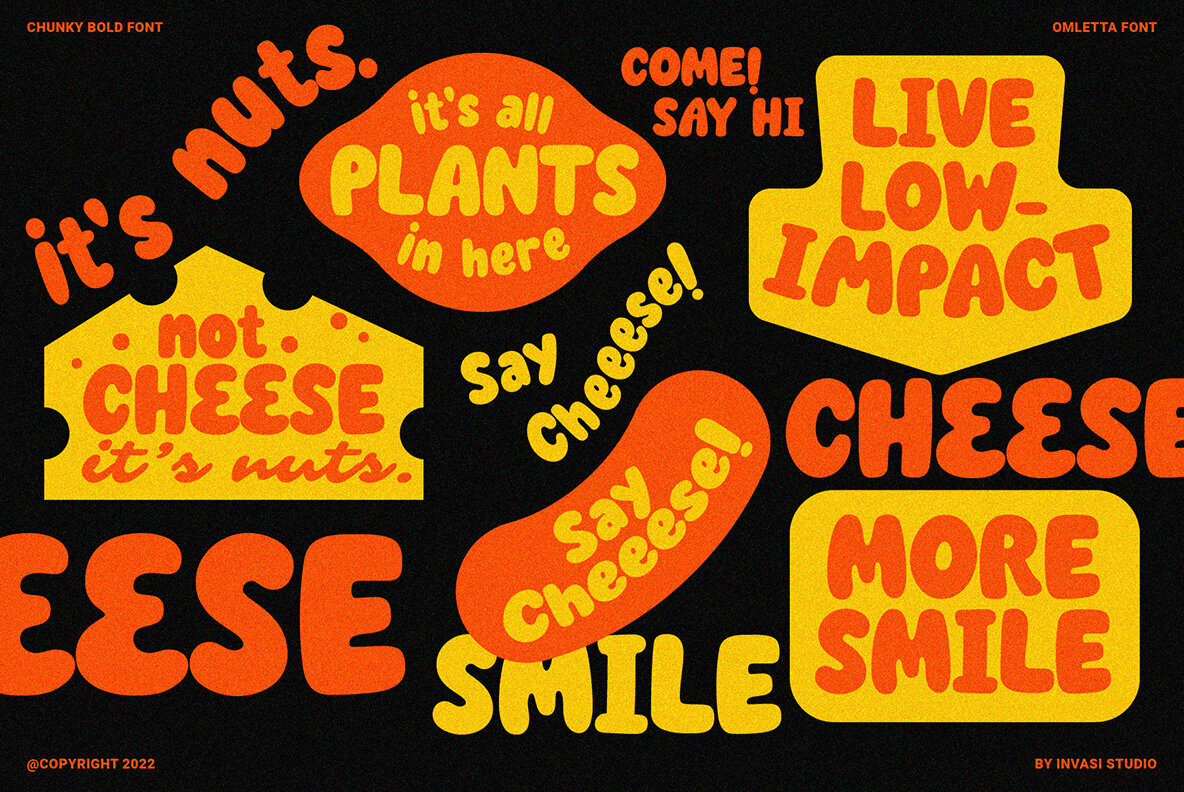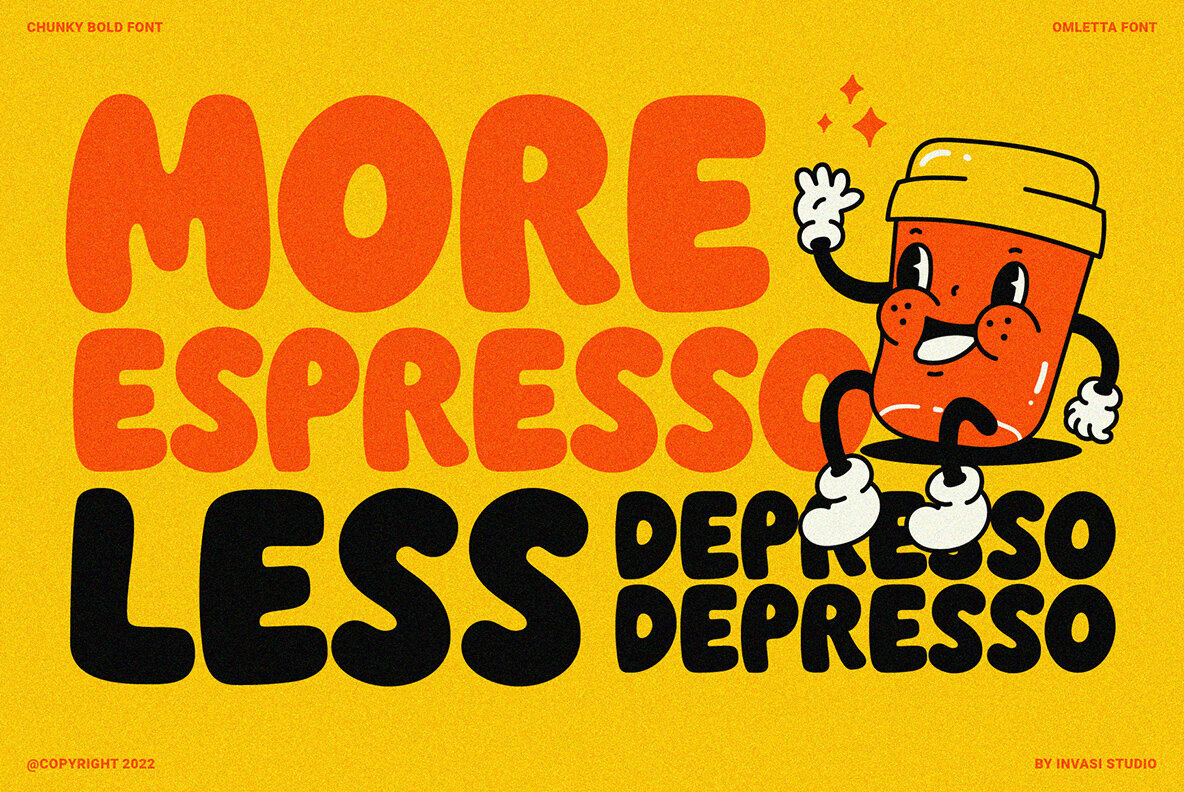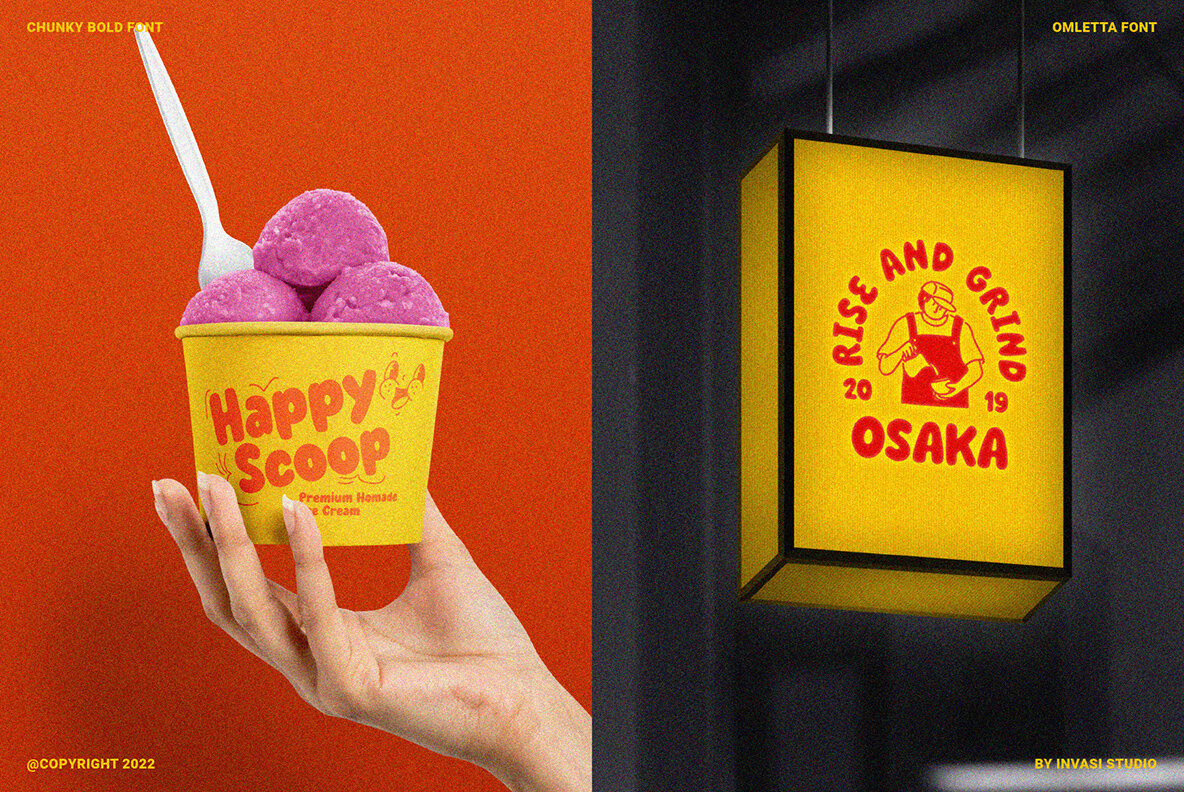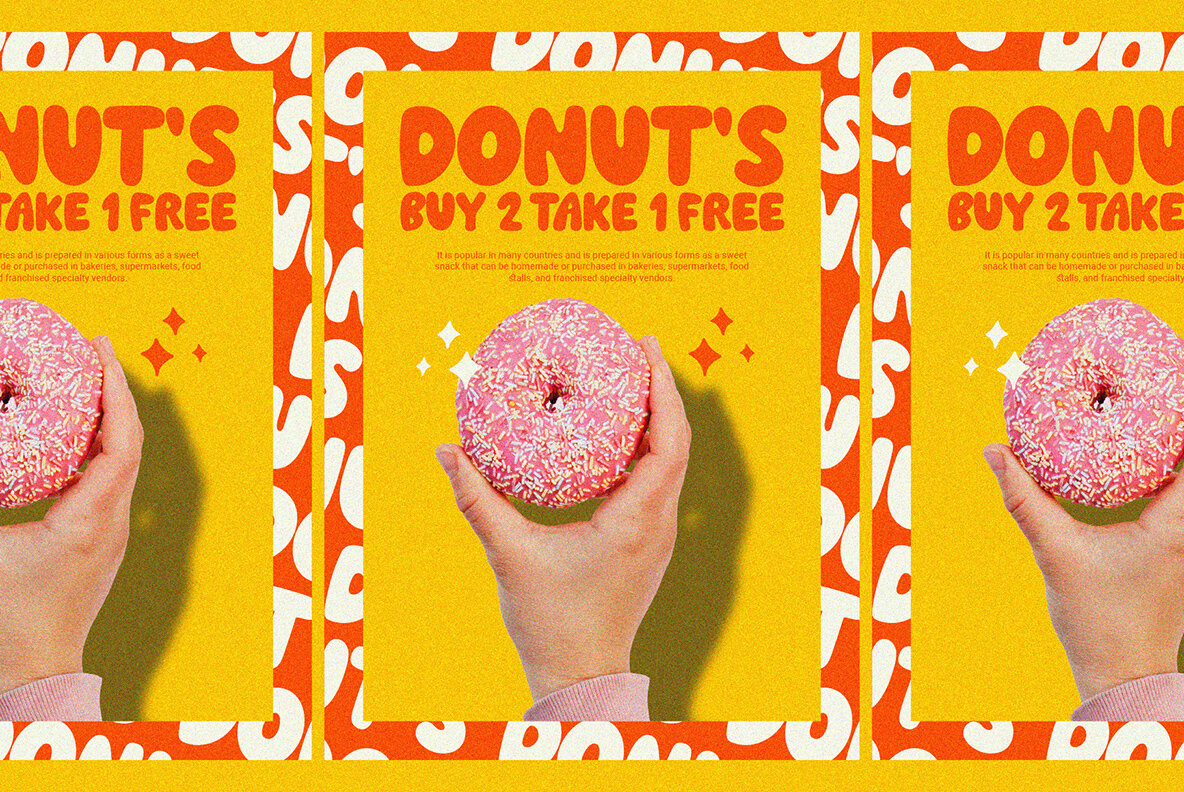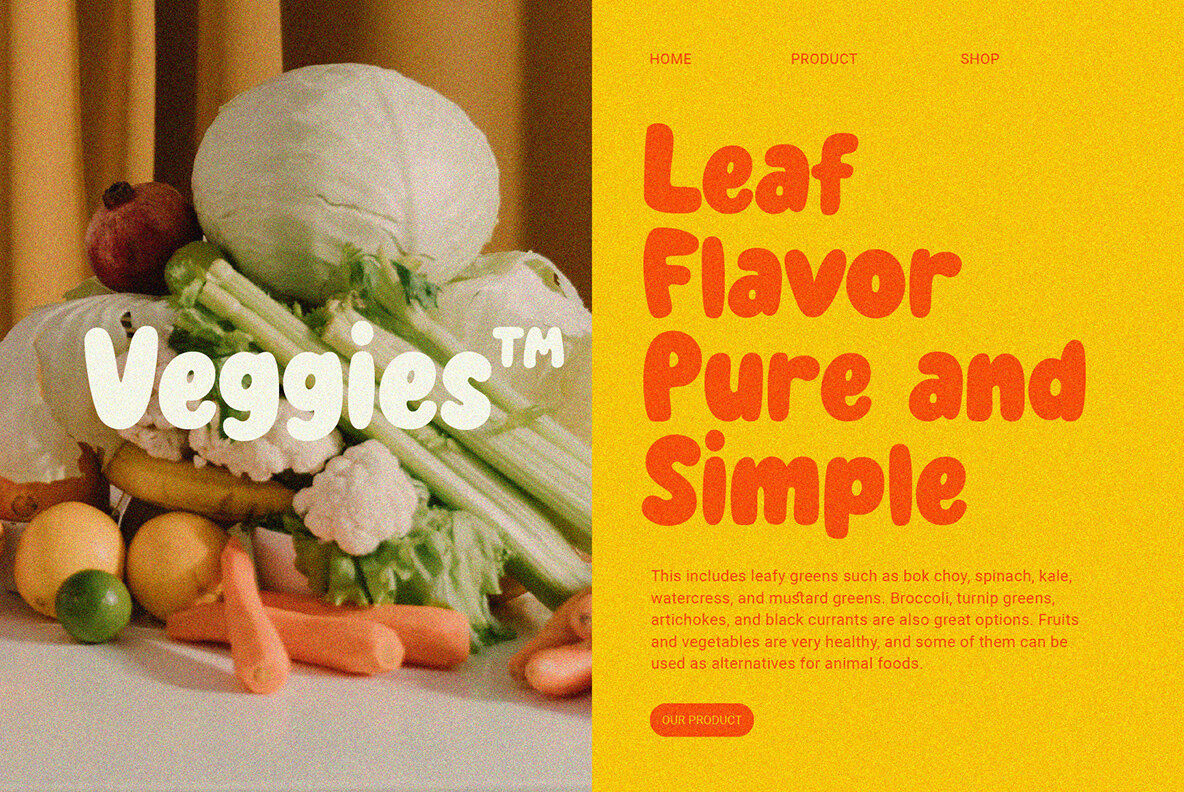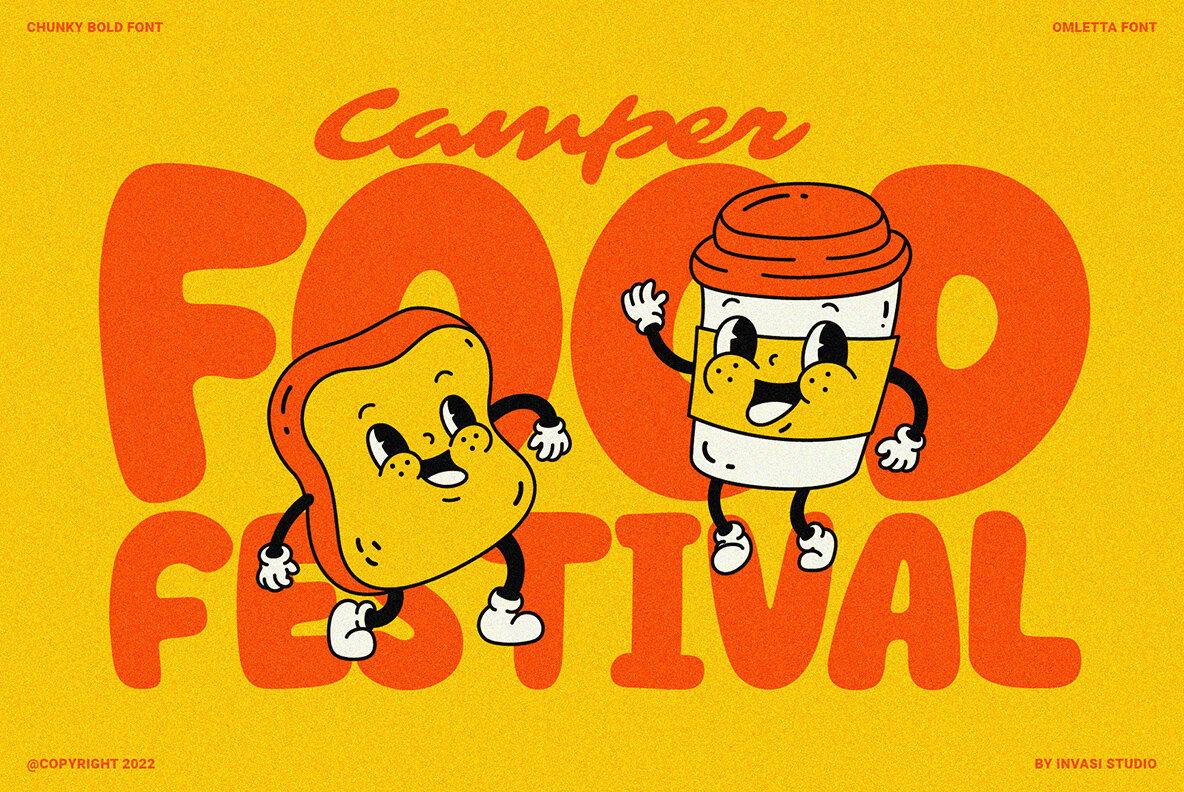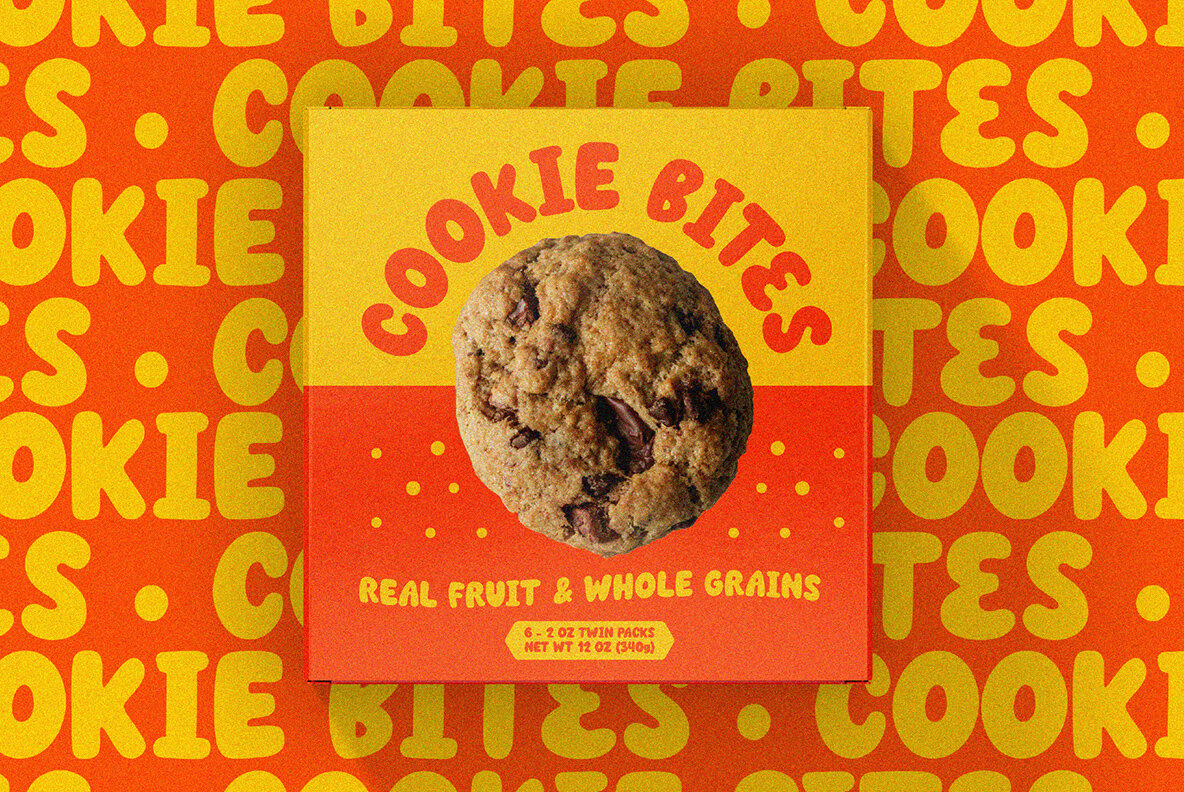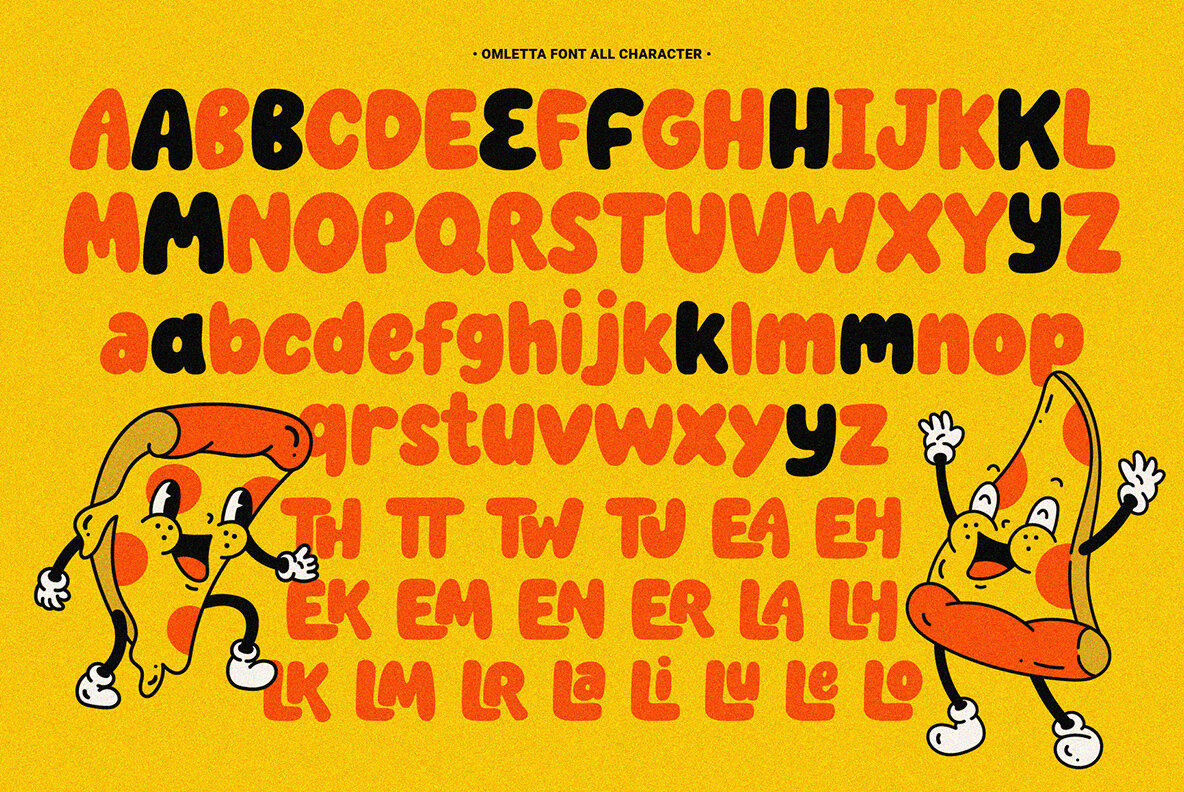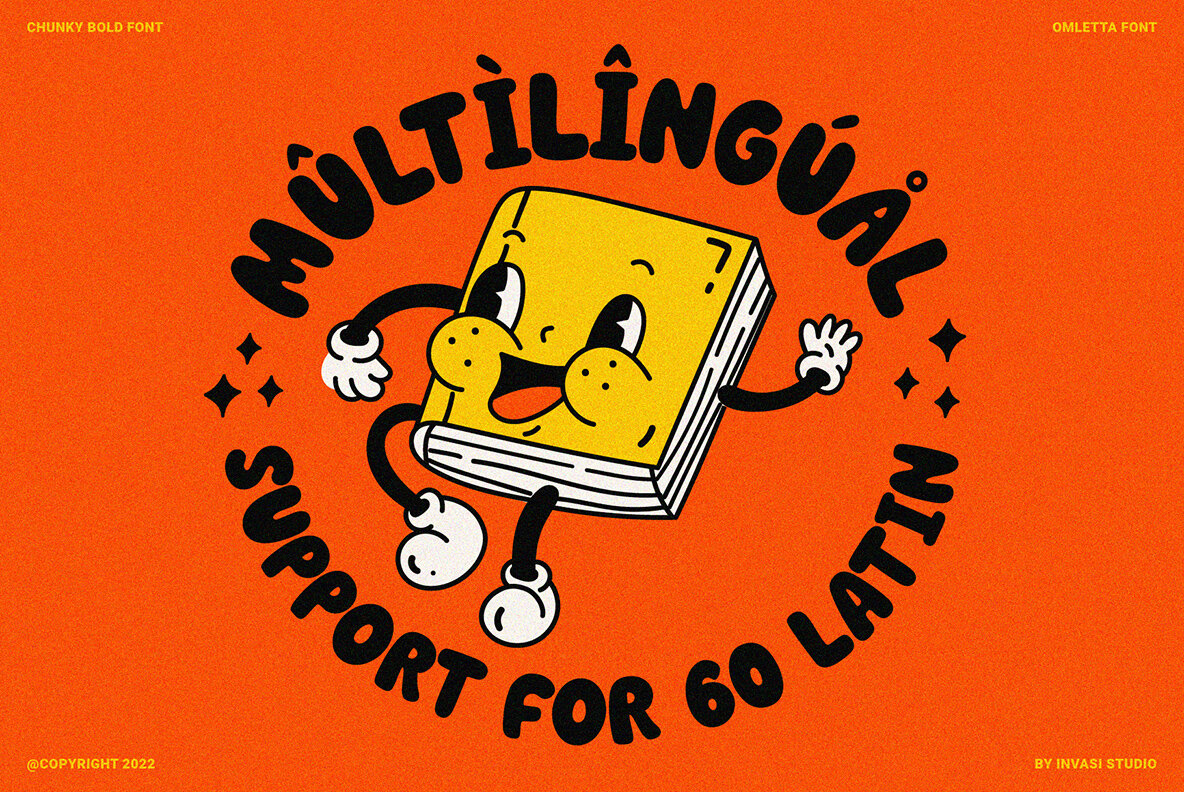
Omletta Font
Omletta Regular
This chunky rounded bold font is not only fun and playful but also incredibly versatile. Whether you're working on food product branding, creating a display headline, or designing packaging for your latest project, Omletta font will surely bring a smile to your face.
With its bold and rounded design, Omletta font is perfect for creating eye-catching designs that demand attention. It's perfect for brands that want to make a bold statement and stand out from the crowd. Plus, with its support for Latin multilingual, you can use Omletta font for all of your international design projects.
So what are you waiting for? Add some fun and excitement to your next project with Omletta font. With its playful and youthful tone, this font is perfect for creating unique and memorable designs. Whether you're designing for a food brand or a fun event, Omletta font is the perfect choice to help you capture the essence of your project. Get ready to make your designs pop with this bold and playful font!